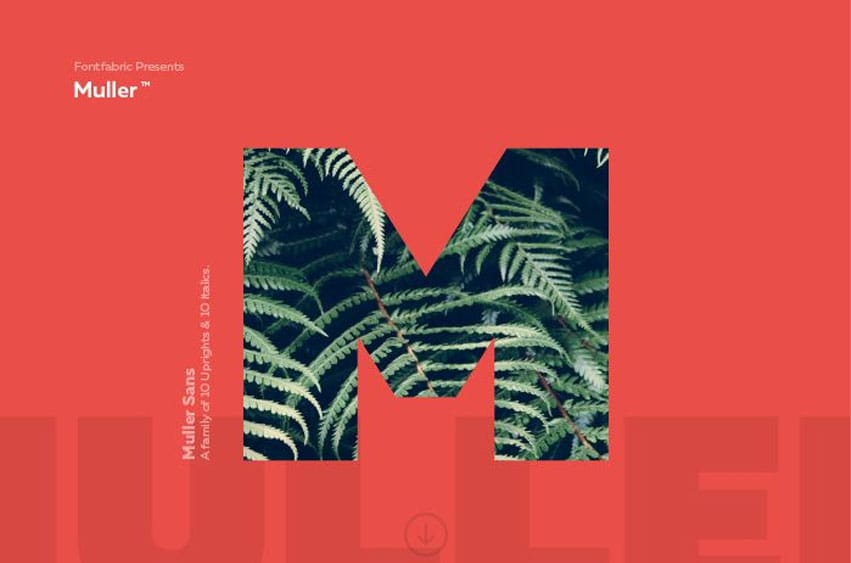
Muller Font The very first sketches of Muller were made by Fontfabric type foundry in 2011 during numerous hand-writing drafts of a natural handwriting with various pencils and calligraphy pens. In the transition, they morphed until the once had nothing in common with the original idea. Like all of our efforts, when perfection is pursued, change is a given.
This sans-serif typeface was specifically developed with a wider structure to look good in small sizes and a lot of extra attention to detail required for big sizes. We found the golden middle and created a perfect, universal type family in 20 weights — from Thin to Heavy with corresponding Italics.